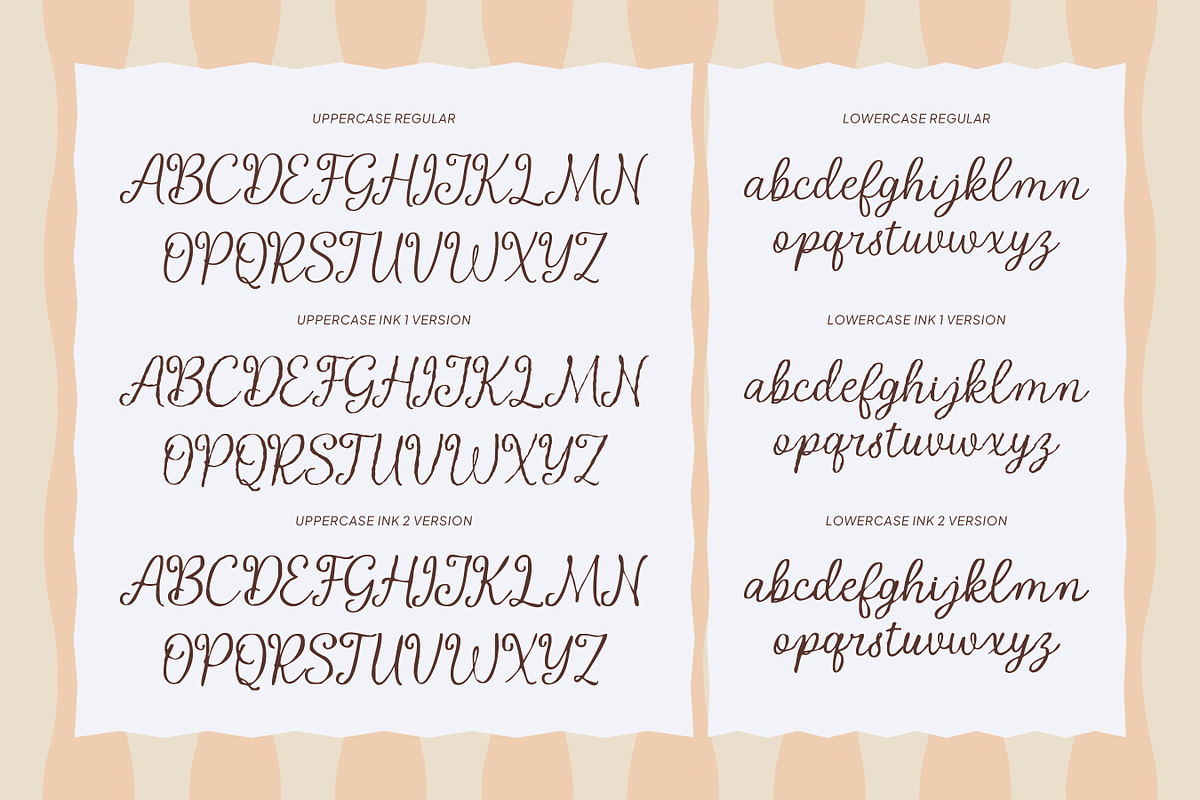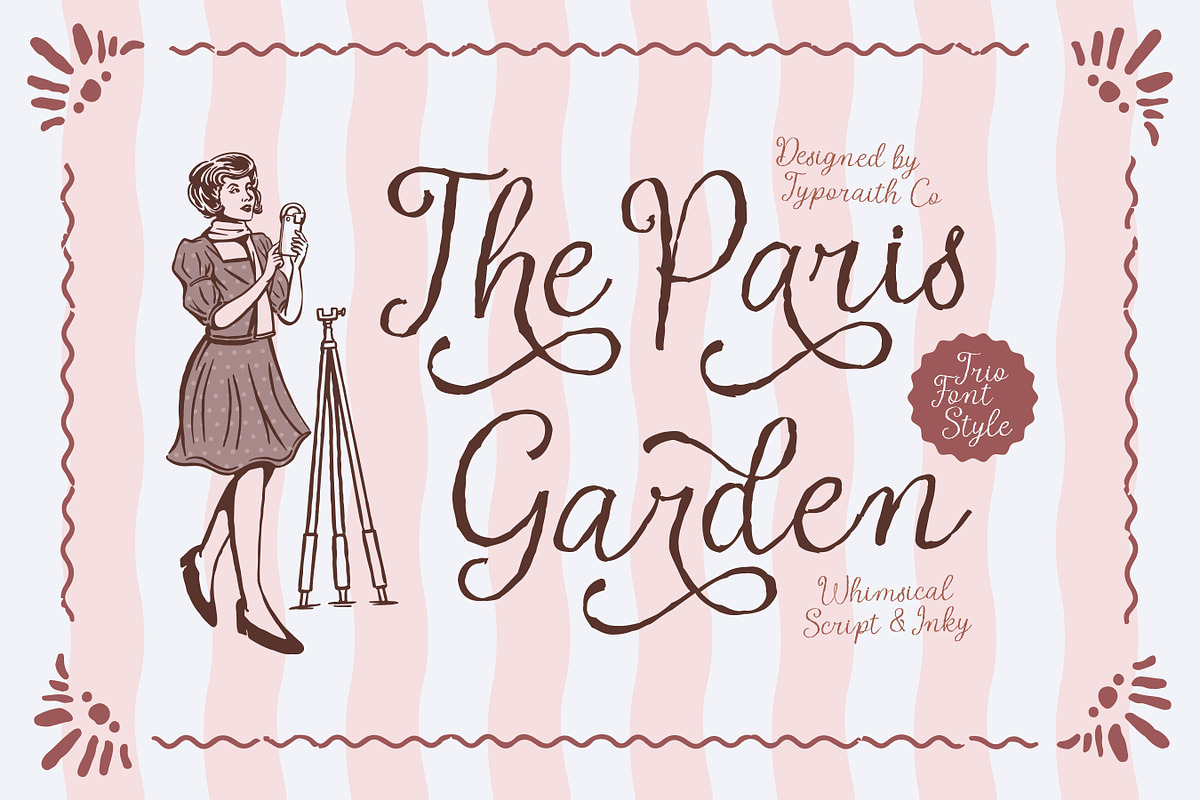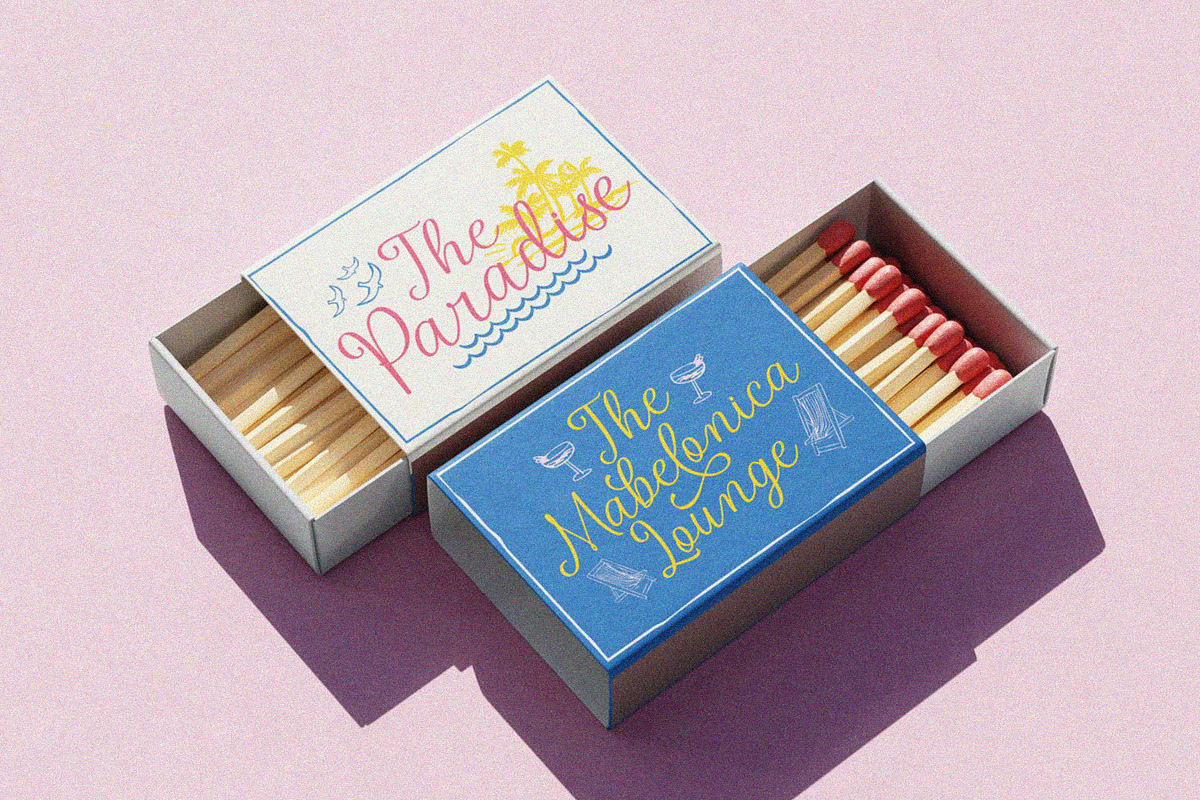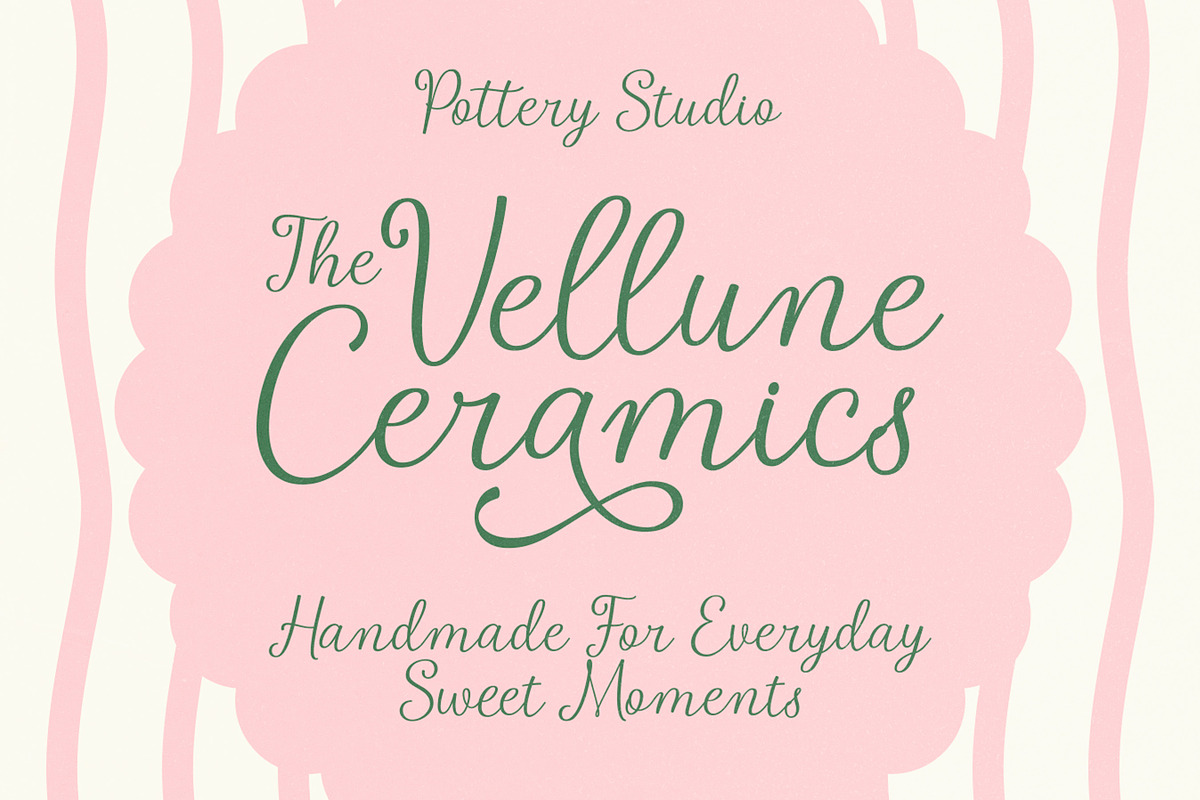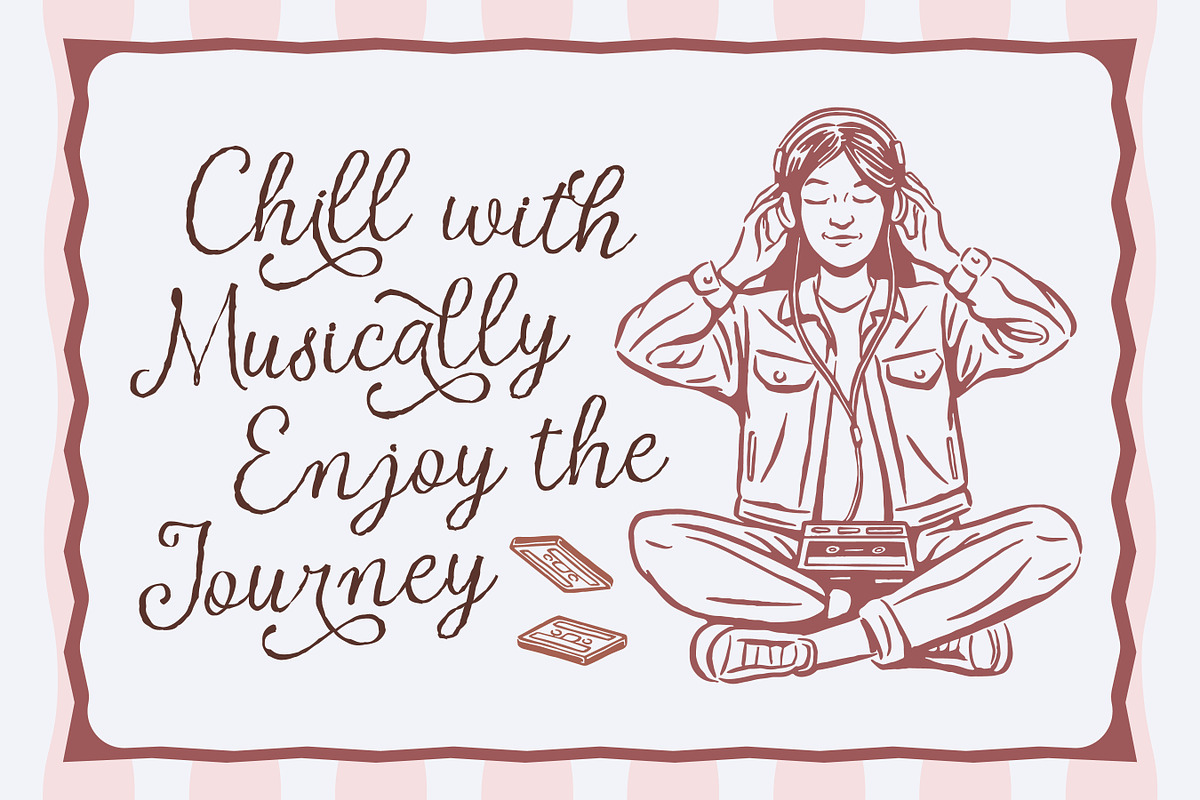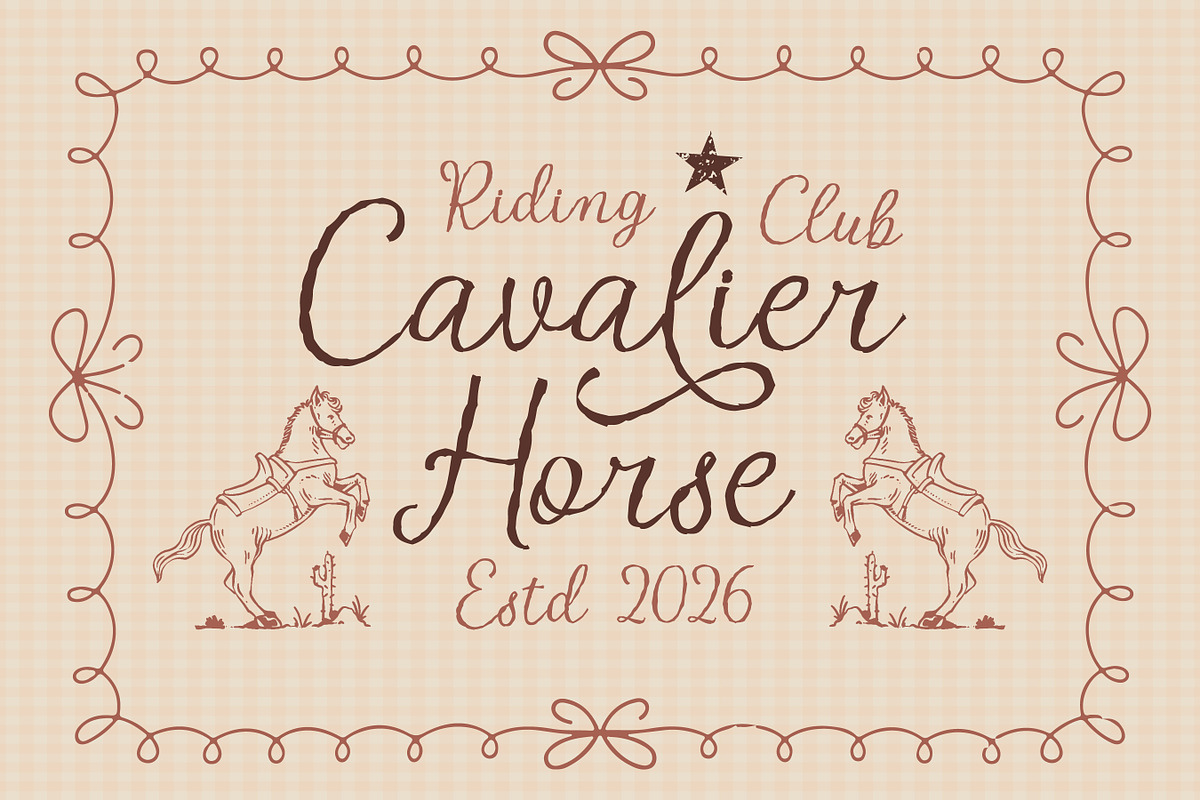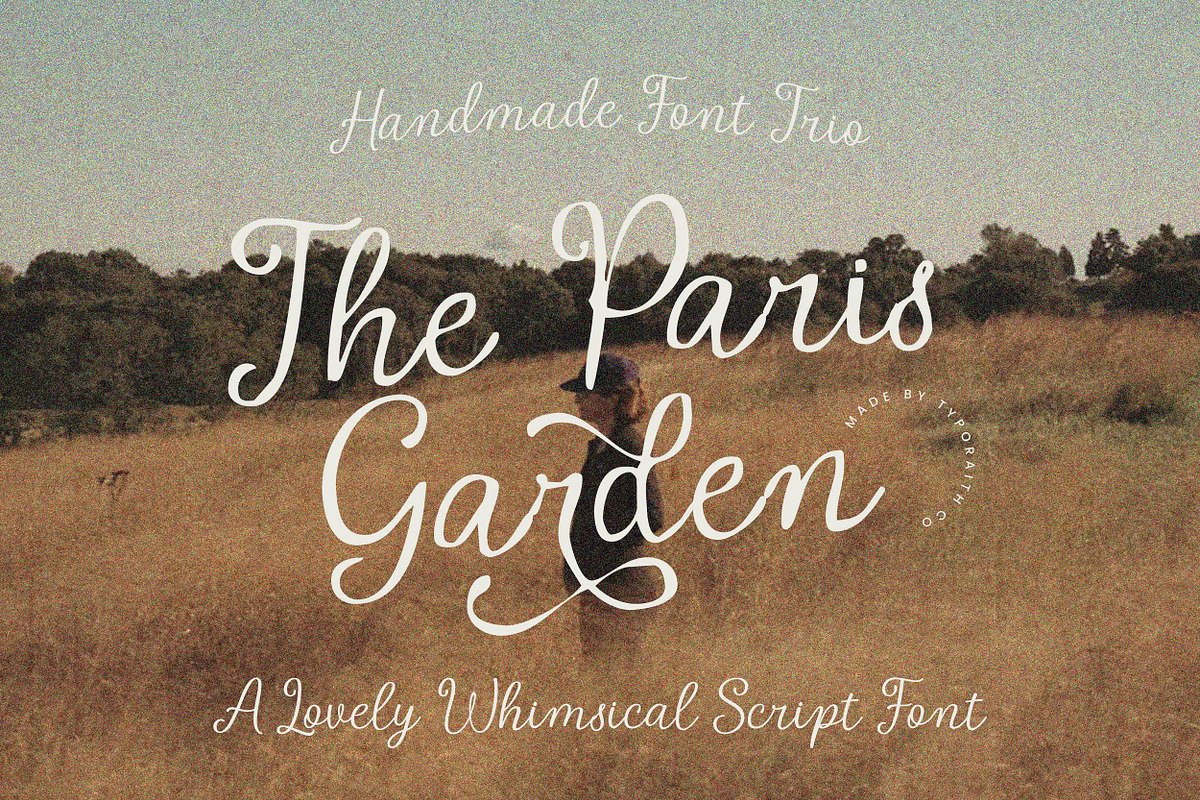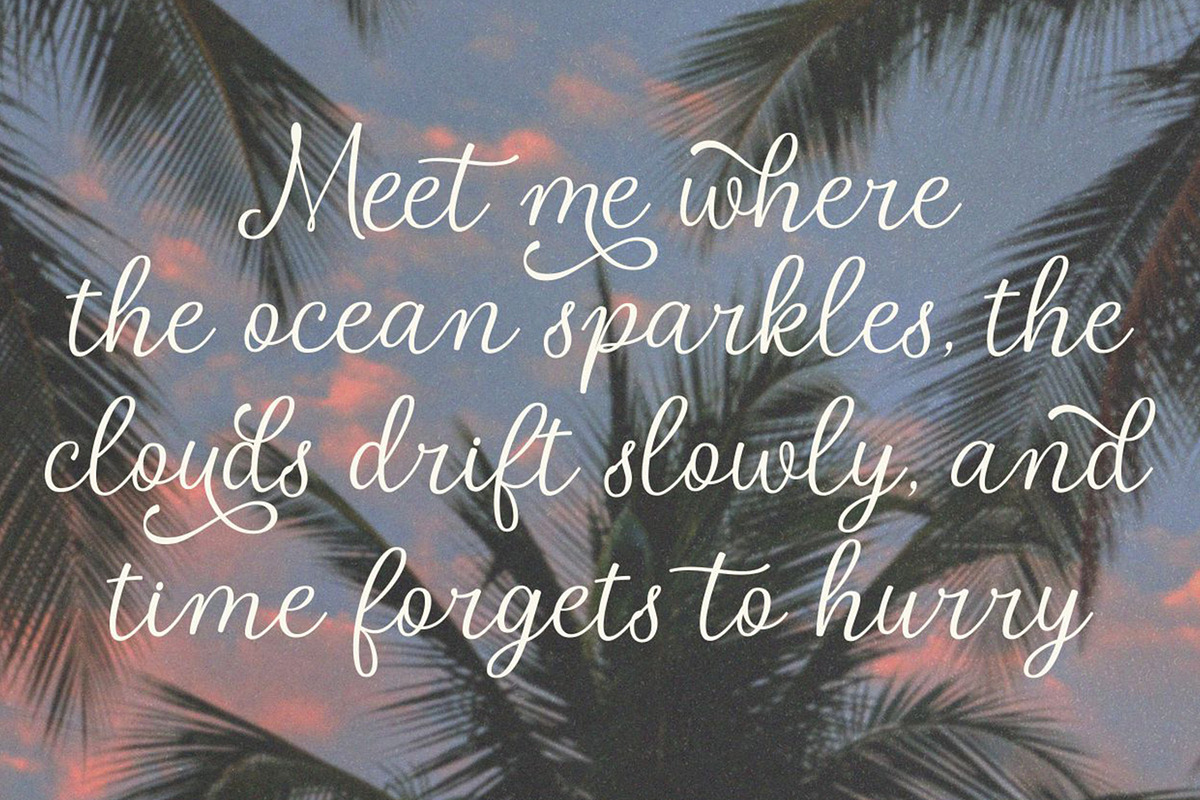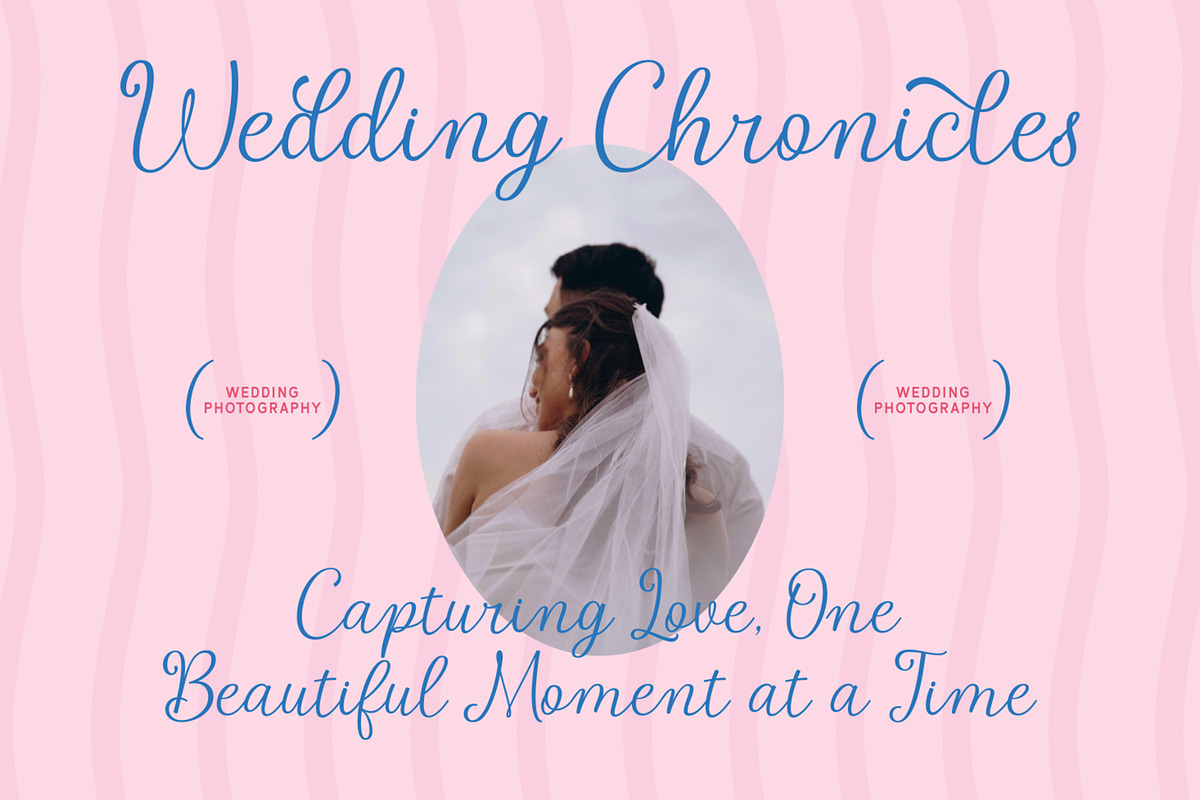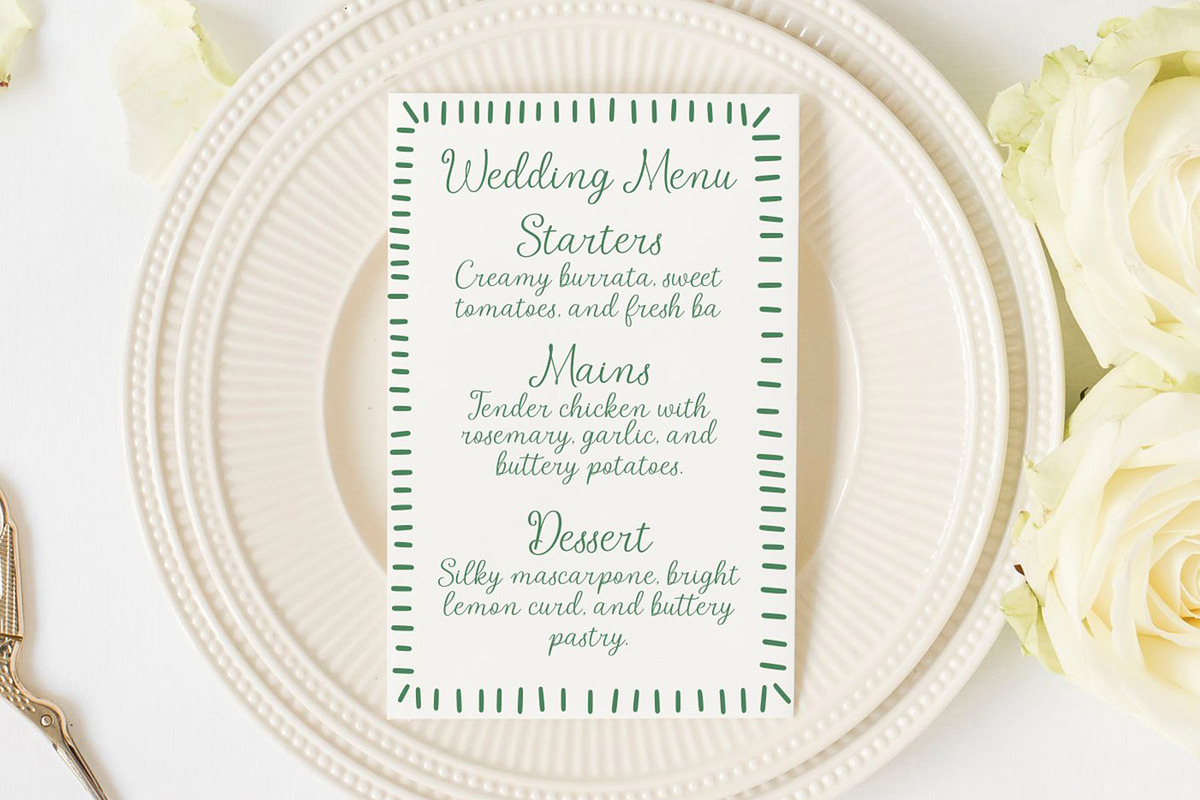
Whimsical Handwritten Font Trio
The Paris Garden is a lovely whimsical script font trio inspired by romantic gardens, handwritten letters, and timeless European elegance. With its graceful curves, flowing strokes, and playful swashes, this typeface brings a warm handmade feeling to every design.
Designed to feel both elegant and expressive, The Paris Garden is perfect for creating beautiful branding, wedding stationery, invitations, packaging, social media graphics, and editorial designs.
The flowing letterforms and decorative details make it easy to create a sophisticated yet personal look. Whether you're designing a romantic wedding invitation, an elegant logo, or a charming product label, The Paris Garden adds a touch of handcrafted beauty to your work.
3 unique font styles
The Paris Garden Regular
The Paris Garden Ink 1
The Paris Garden Ink 2
The Paris Garden is made for designers, creatives, and brands looking for a romantic handwritten aesthetic with a refined and timeless feel.